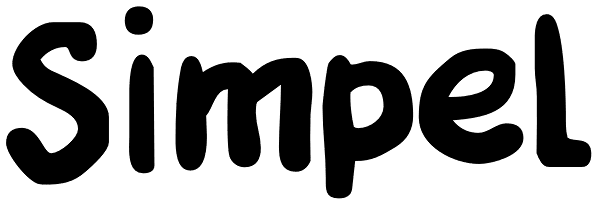
Simpel
This font was made during testing of a neat little application, that traced hand-written letters on the fly. That application was later abandoned, and the font, named Simpel for it's obvious casual simplicity, was finished separately. This story...